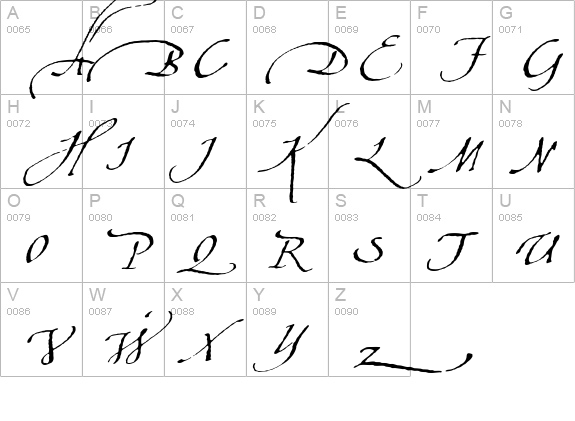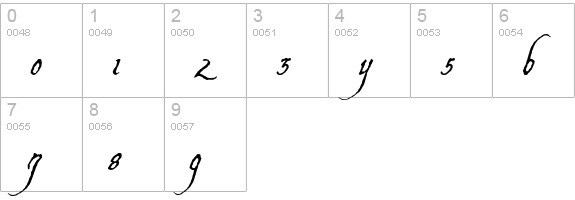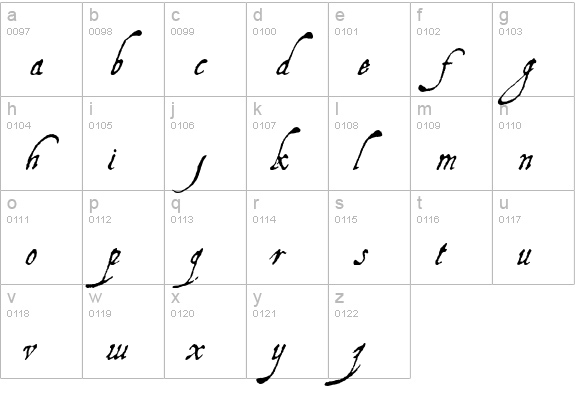
Aquiline Font Details
Aquiline font is a stunning and elegant typeface that exudes sophistication and charm. With its graceful curves and distinct serifs, Aquiline is the perfect choice for projects that require a touch of refinement and class. This font is ideal for invitations, branding, logos, and any other design work that calls for a touch of elegance. The best part about Aquiline font is that it is completely free to download at FontsMarket.com. You can easily access this beautiful typeface and enhance your creative projects without any cost. Don't miss out on the opportunity to add Aquiline font to your collection and elevate your designs with its timeless beauty. Download it today and start creating stunning visuals that will leave a lasting impression.